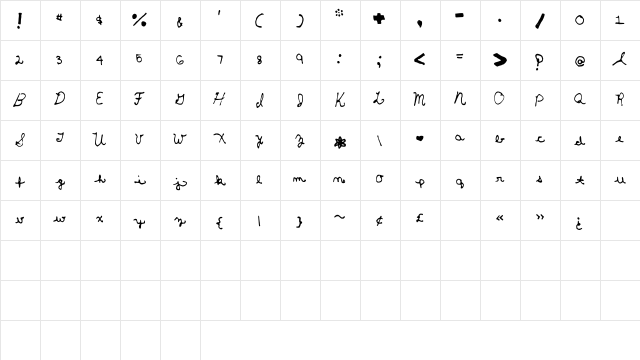
TinyLittleBows Medium
Design Context for TinyLittleBows Typeface
TinyLittleBows is a composed and adaptable typeface that performs quietly and consistently across a wide range of design contexts.